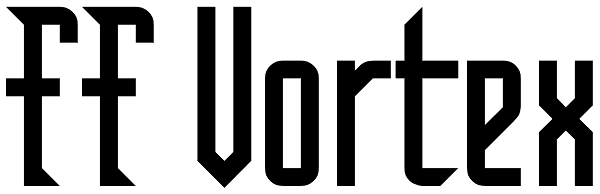
FF Vortex
Dutch type designer Max Kisman created this display FontFont in 1990. The font is ideally suited for advertising and packaging and poster and billboards. FF Vortex provides advanced typographical support with features such as ligatures and...